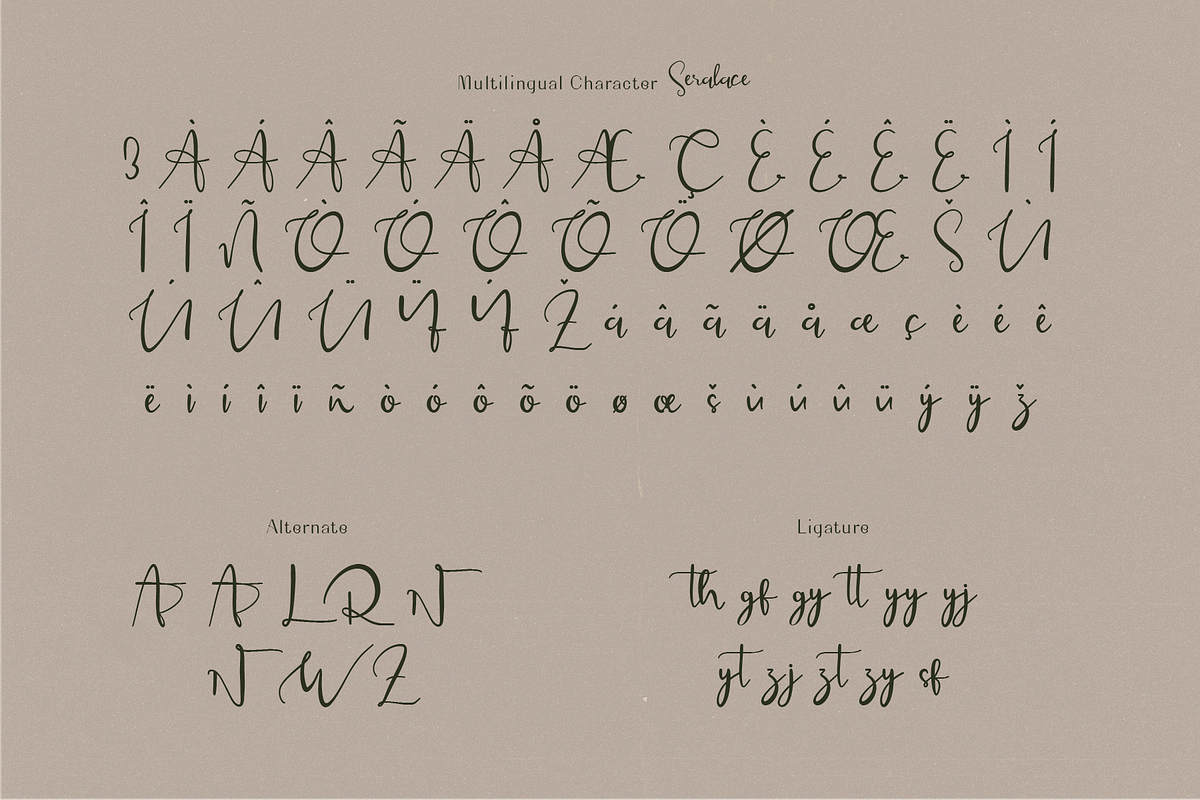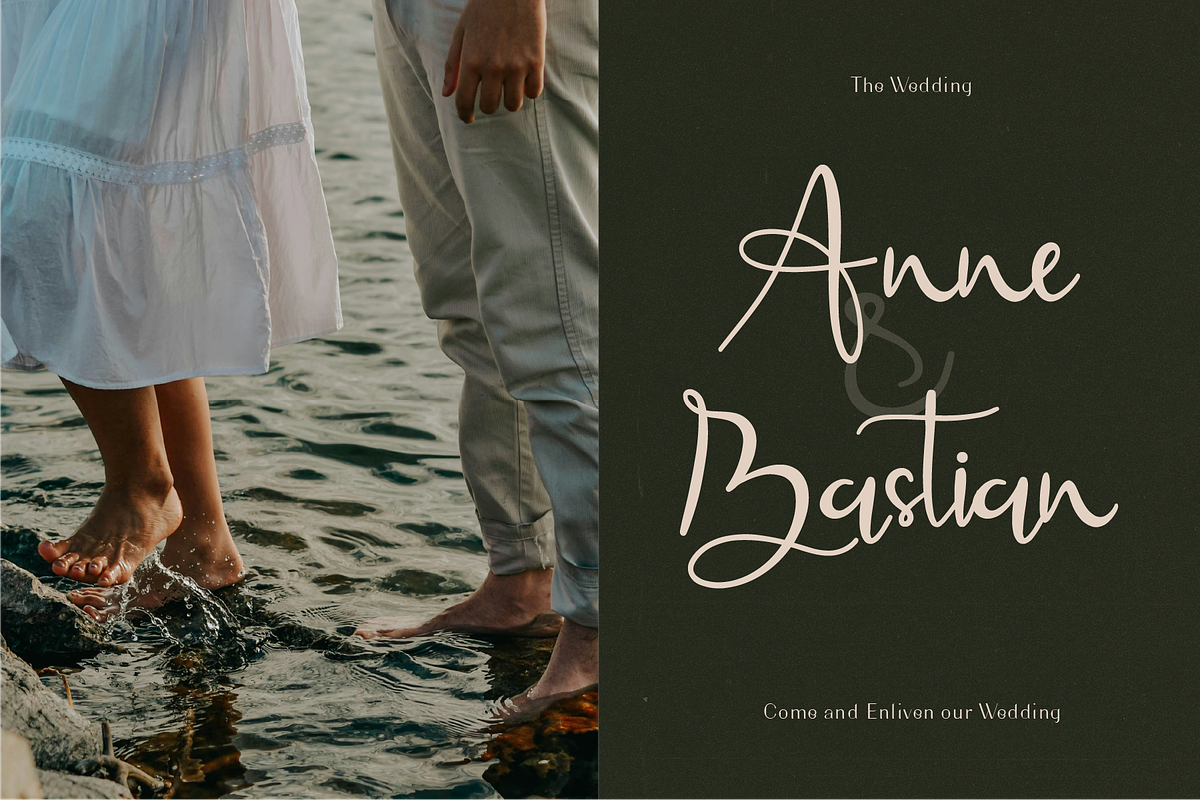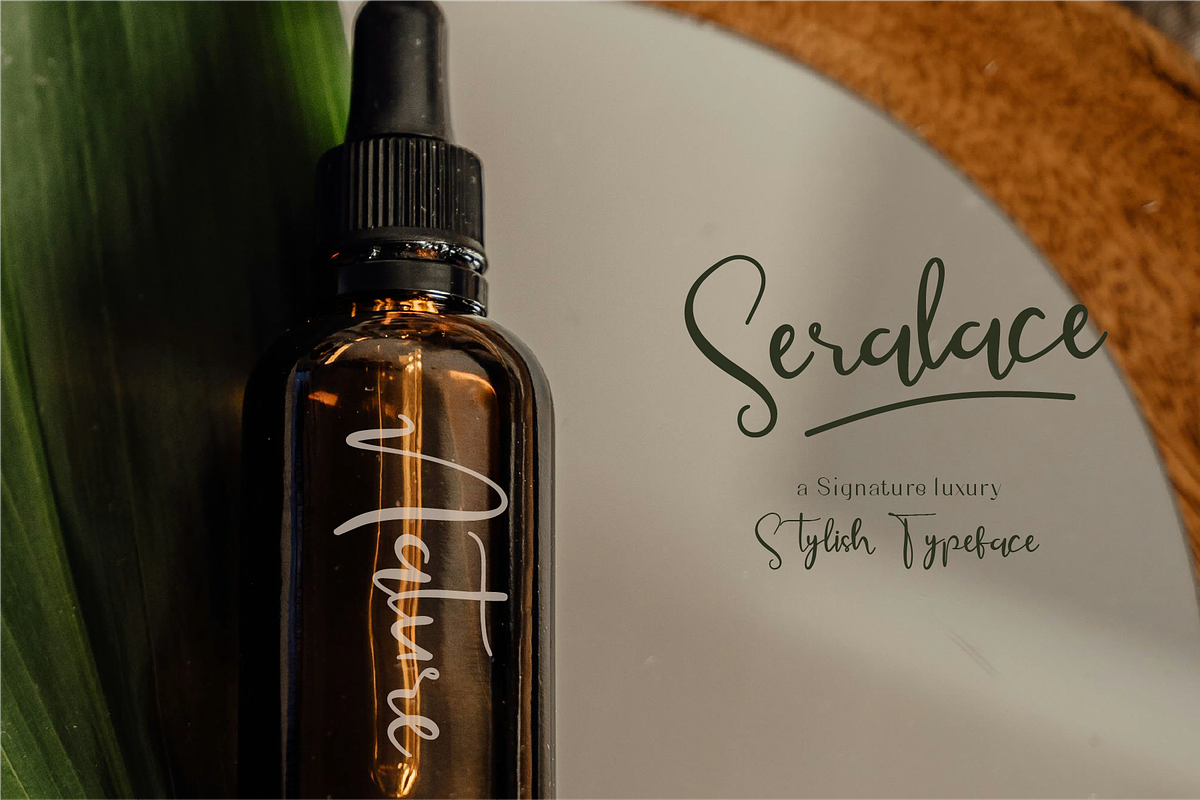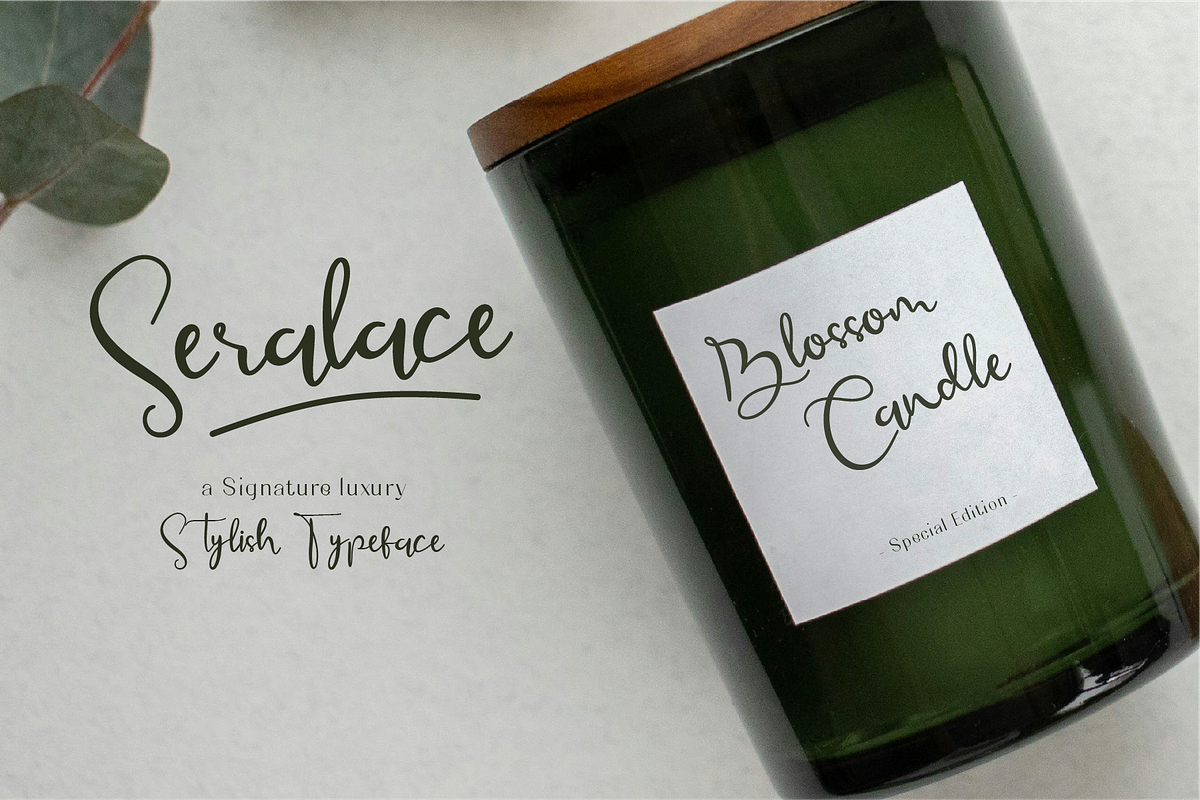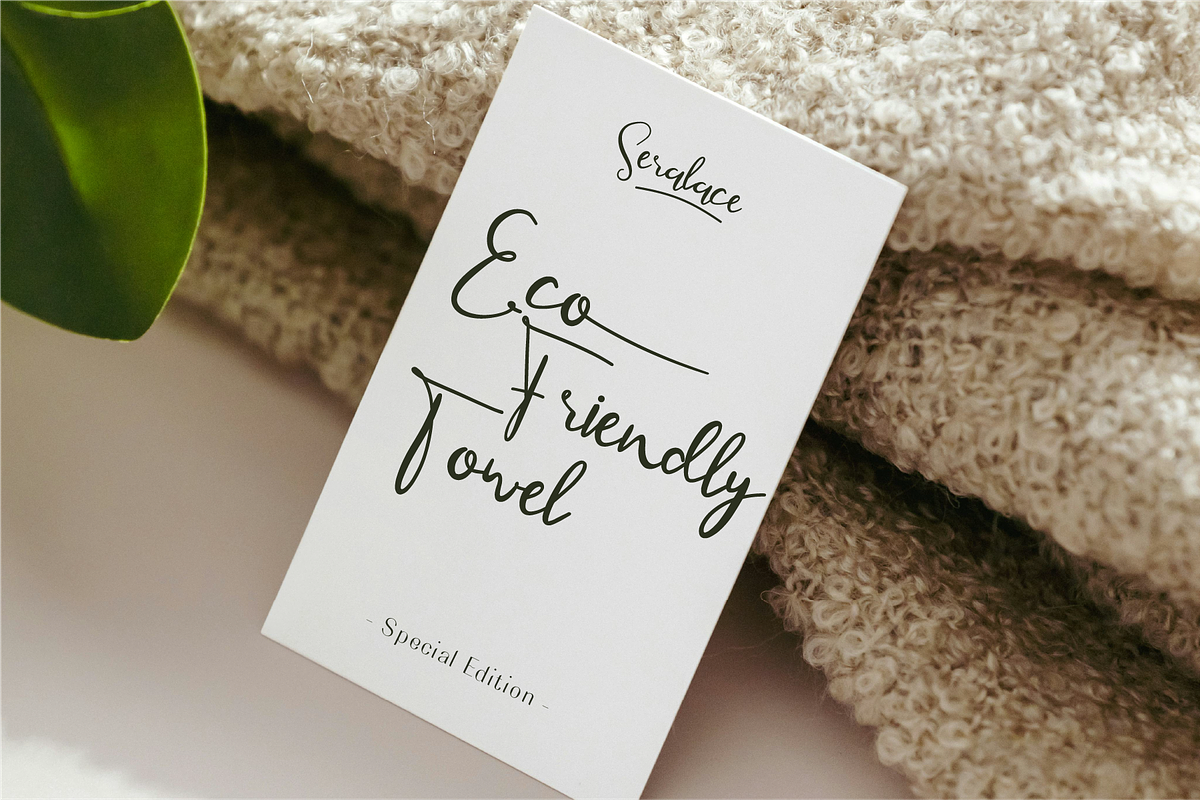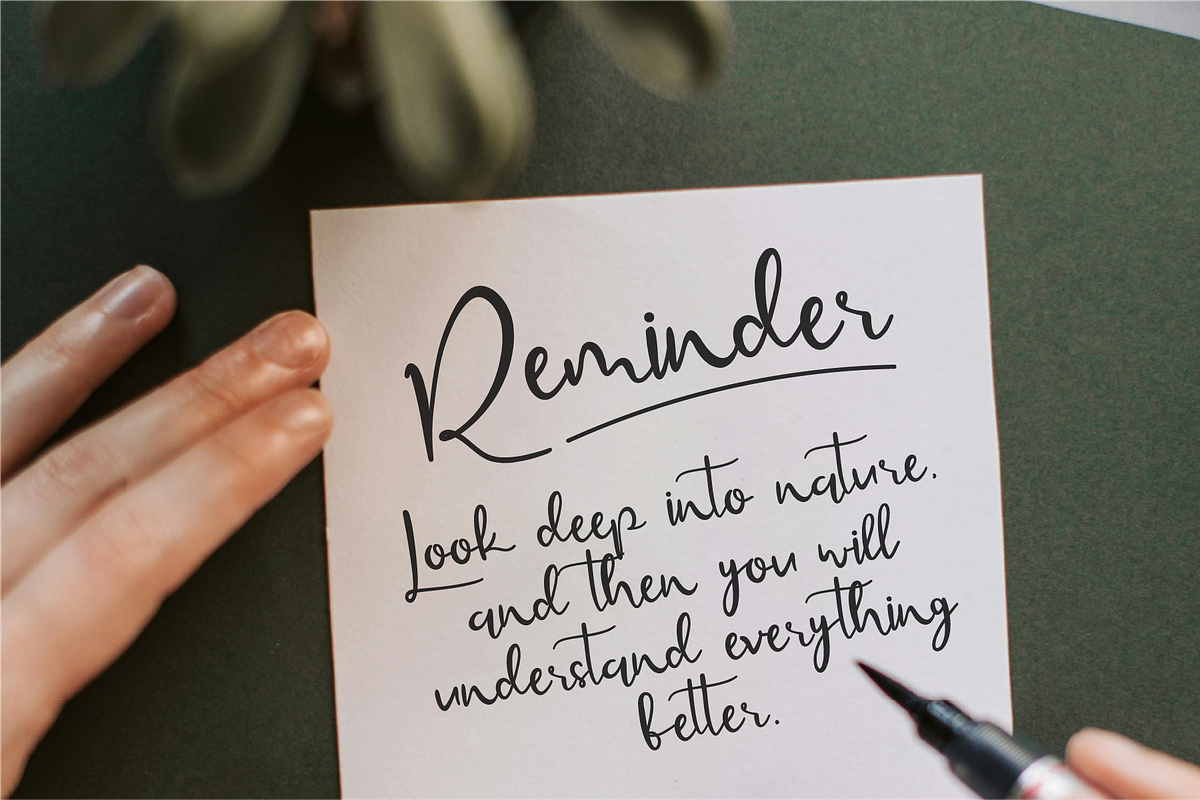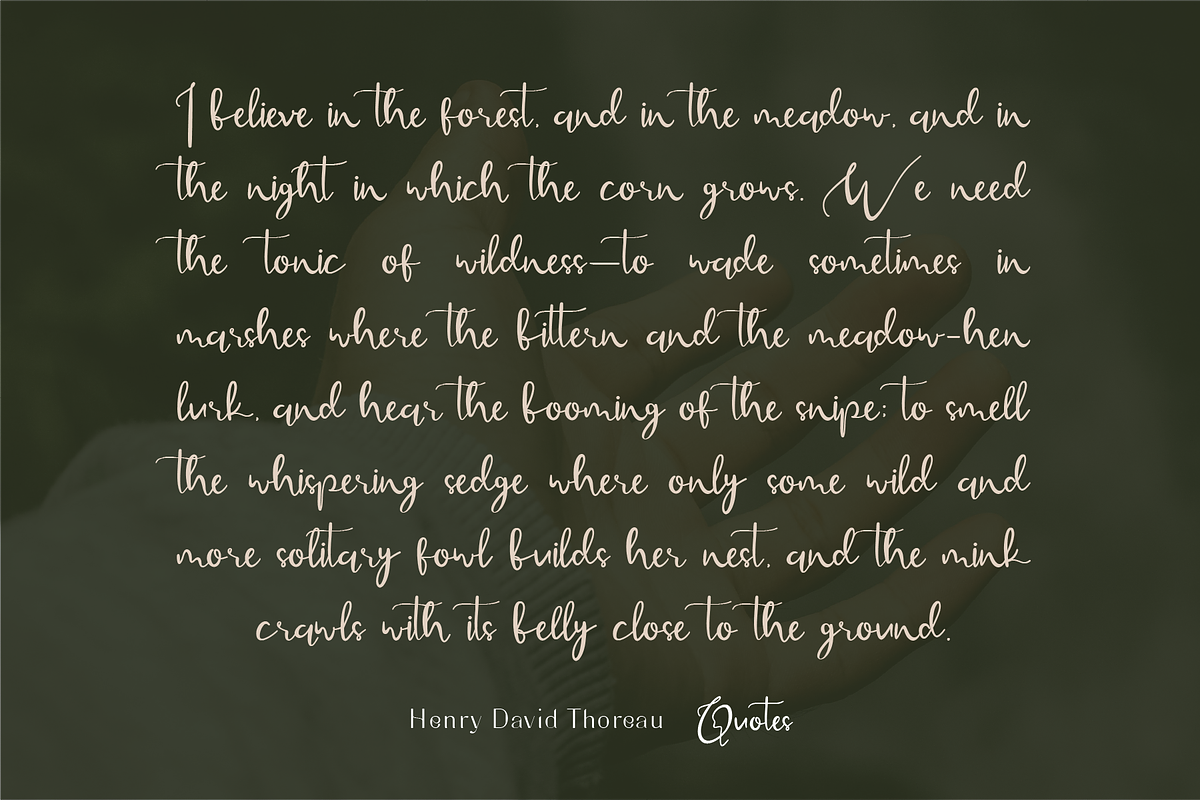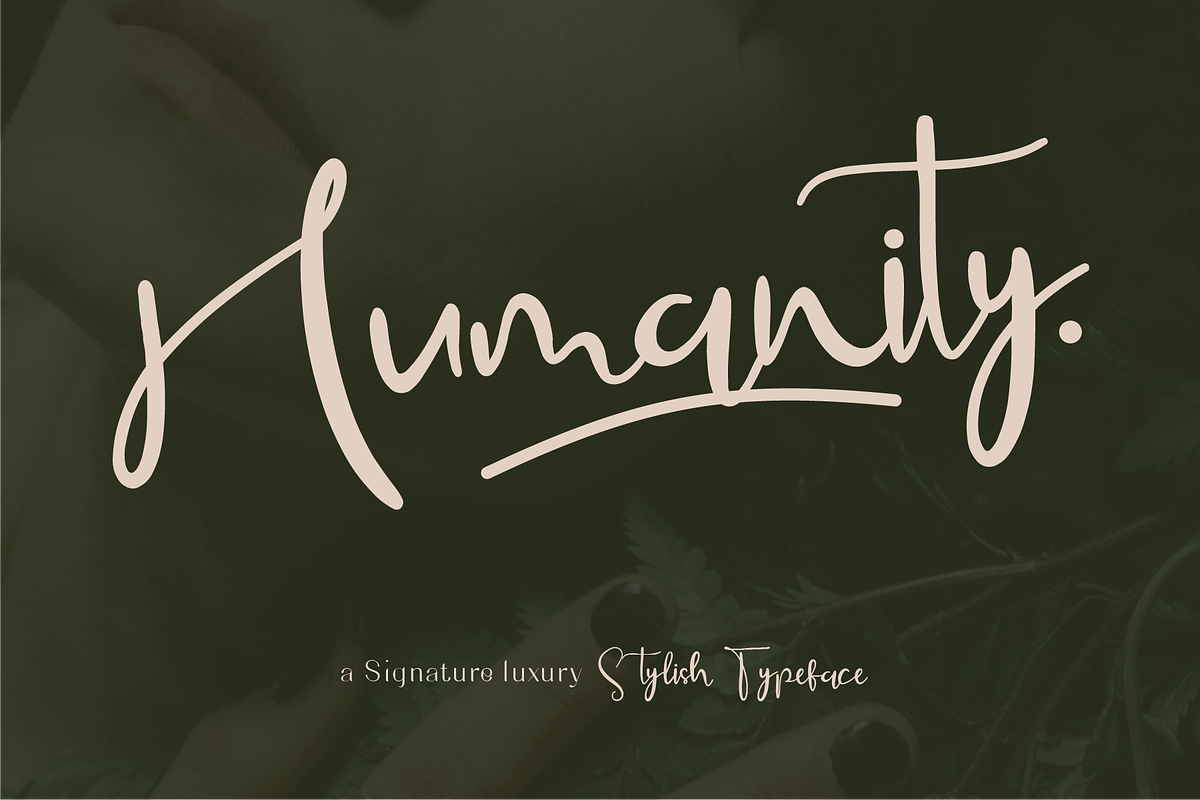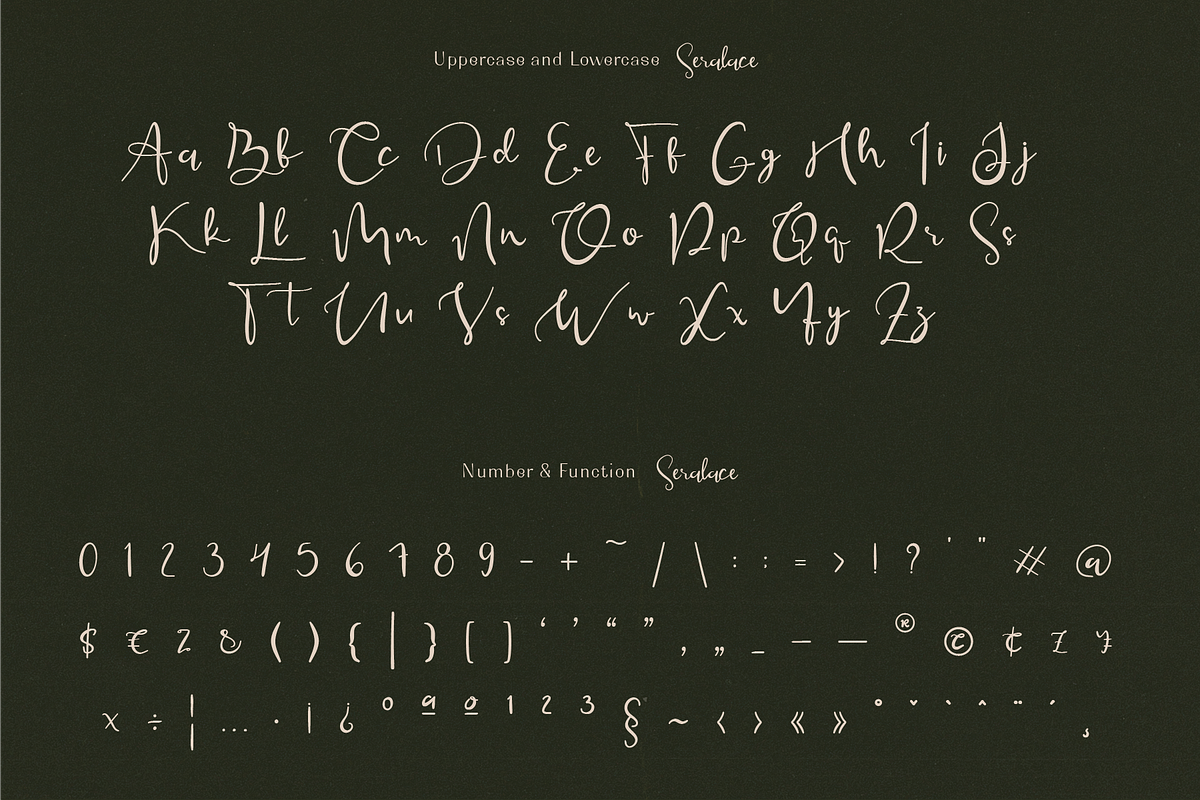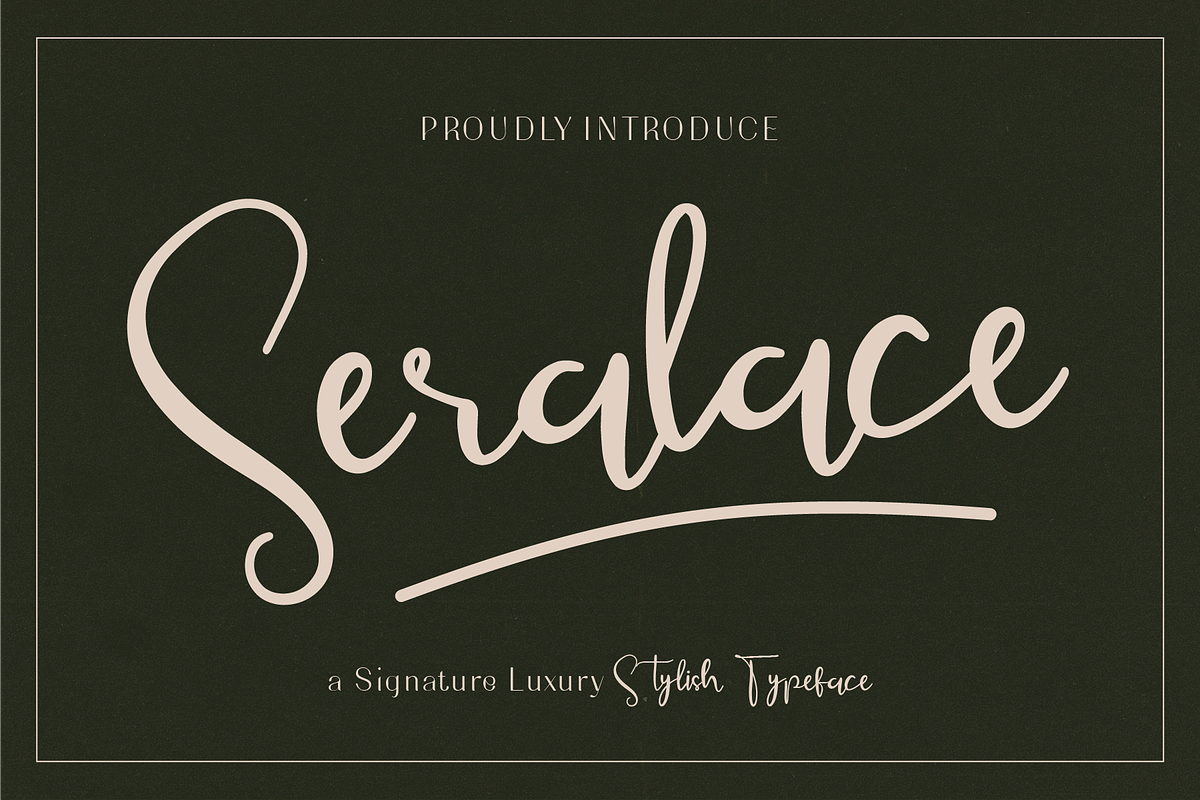
Seralace - Elegant Handwritten
Seralace is a luxurious handwritten signature font that exudes elegance and modern sophistication. With its fluid, gracefully arranged strokes and well-crafted balance, this font radiates a stylish yet timeless charm. The subtle curves and delicate letterforms make it ideal for wedding invitations, branding projects, and romantic designs. Whether you're crafting classy logos or heartfelt messages, Seralace delivers a refined touch that transforms any project into a masterpiece. Its modern yet elegant appeal ensures versatility while retaining its uniquely graceful personality.
- Standard Character A-Z, a-z, 0-9, Punctuation & symbols
- Ligatures and Alternates Included